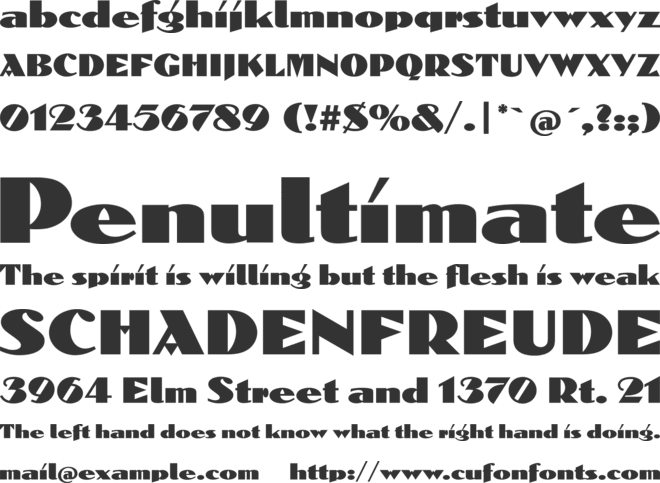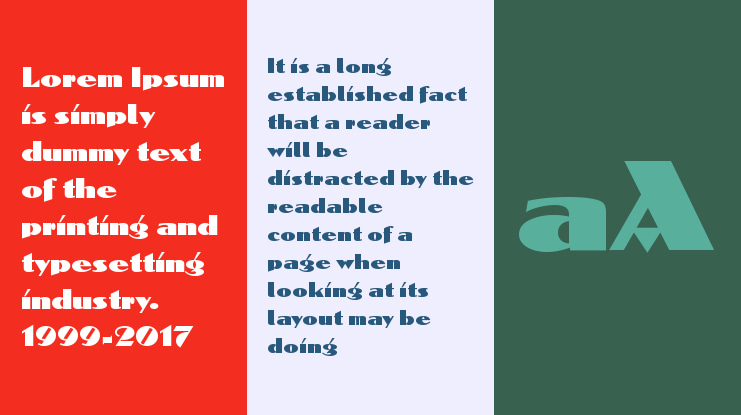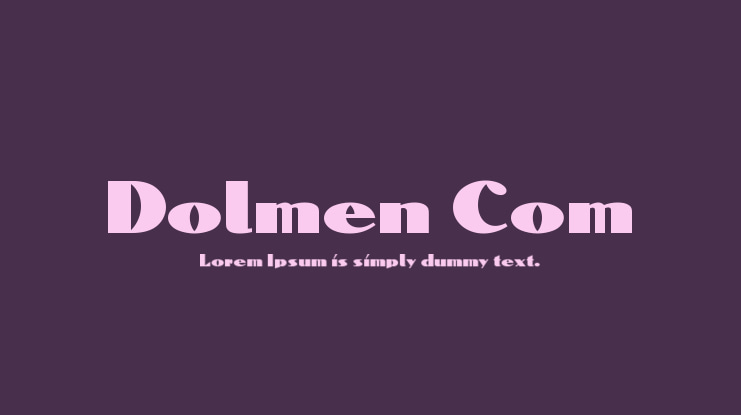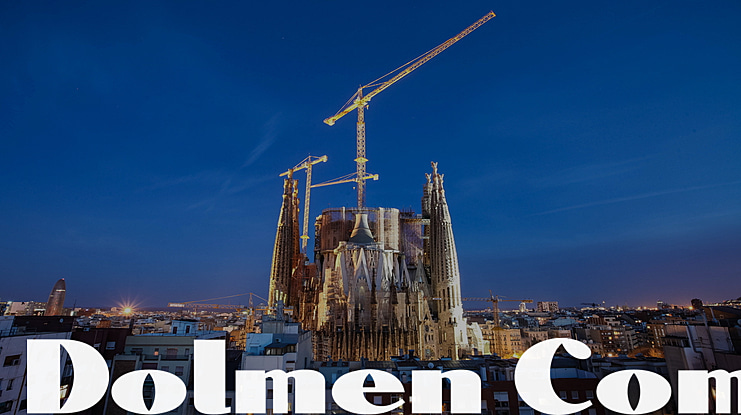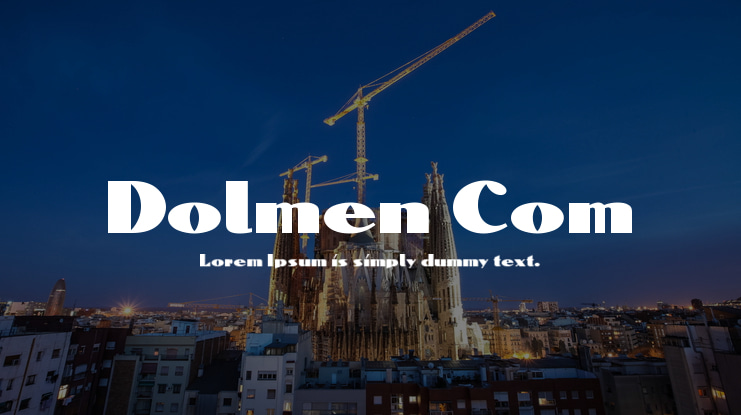
This clever revival of a 1920’s jobbing printer’s style exudes all the fashion and culture of the jazz age. Dolmen offers an interesting alternative to other fonts such as Broadway and Koloss and can be used in all capital or upper- and lowercase settings where an Art Deco look is desired.